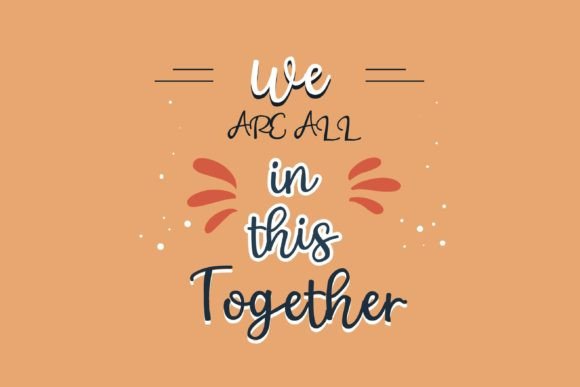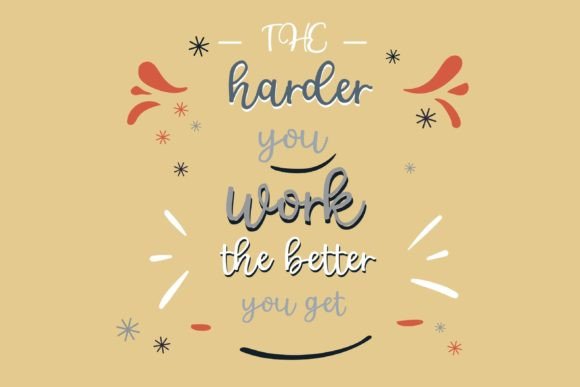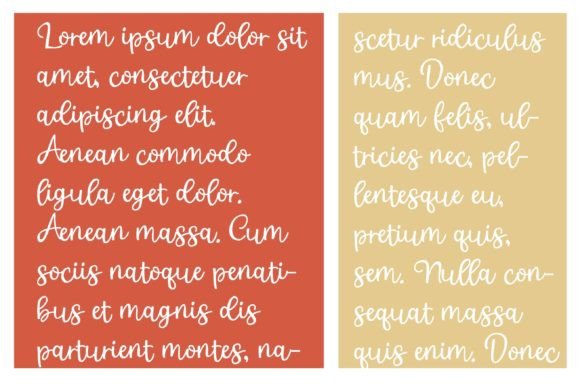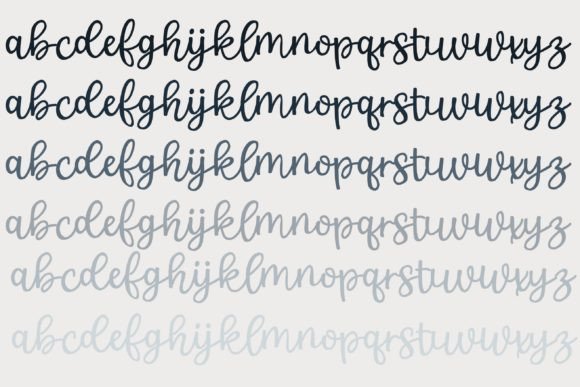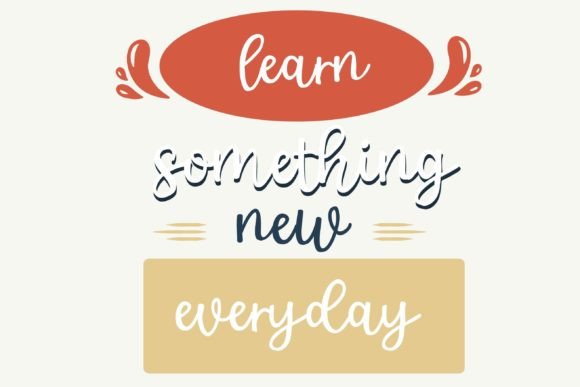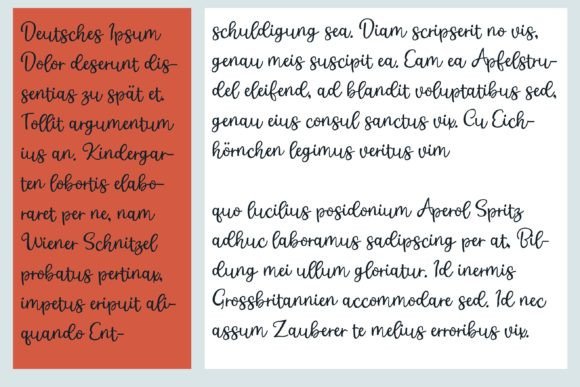
Desperation Font: The Perfect Handwritten Script for Your Extraordinary Projects
Are you tired of using the same old fonts for your design projects? Do you want to add a personal touch to your wedding invitations, greeting cards, or business cards? Look no further than the Desperation Font, a casual, hand-written script that exudes an easy-going look and feel. In this article, we’ll dive into the features and benefits of this beautiful font, and explore how it can elevate your designs to the next level.
A Natural and Stylish Font for Any Occasion
The Desperation Font is a versatile script that looks natural and stylish, making it perfect for any extraordinary project that requires a handwritten feel. Its unique charm and character make it an excellent choice for designers and crafters who want to add a personal touch to their work. Whether you’re designing wedding invitations, thank you cards, quotes, or greeting cards, this font is sure to impress.
Key Features of Desperation Font
- Handwritten feel: The Desperation Font has a genuine handwritten look and feel, making it perfect for designs that require a personal touch.
- Easy-going style: This font has a relaxed and casual style that’s perfect for creating designs that are friendly and approachable.
- Versatile: The Desperation Font can be used for a wide range of design projects, from wedding invitations to business cards.
- Natural and stylish: This font looks natural and stylish, making it perfect for designs that require a touch of elegance.
The Desperation Font is a dream come true for designers and crafters who want to create unique and personalized designs. Its versatility and charm make it an excellent choice for a wide range of projects, including:
- Wedding invitations: Add a personal touch to your wedding invitations with the Desperation Font.
- Thank you cards: Create beautiful and heartfelt thank you cards with this lovely font.
- Quotes: Use the Desperation Font to create inspiring and motivational quotes.
- Greeting cards: Design beautiful greeting cards for any occasion with this font.
- Logos: Use the Desperation Font to create a unique and personalized logo for your business.
- Business cards: Add a touch of elegance to your business cards with this font.
Why Choose Desperation Font?
So, why choose the Desperation Font for your design projects? Here are just a few reasons:
- Unique and personalized: This font adds a personal touch to your designs, making them stand out from the crowd.
- High-quality: This font is of high quality, ensuring that your designs look professional and polished.
In conclusion, the Desperation Font is a beautiful and versatile hand-written script that’s perfect for any extraordinary project that requires a handwritten feel. Its natural and stylish look, combined with its easy-going style, make it an excellent choice for designers and crafters who want to add a personal touch to their work. Whether you’re designing wedding invitations, greeting cards, or business cards, this font is sure to impress. So why wait? Download the Desperation Font today and take your designs to the next level!